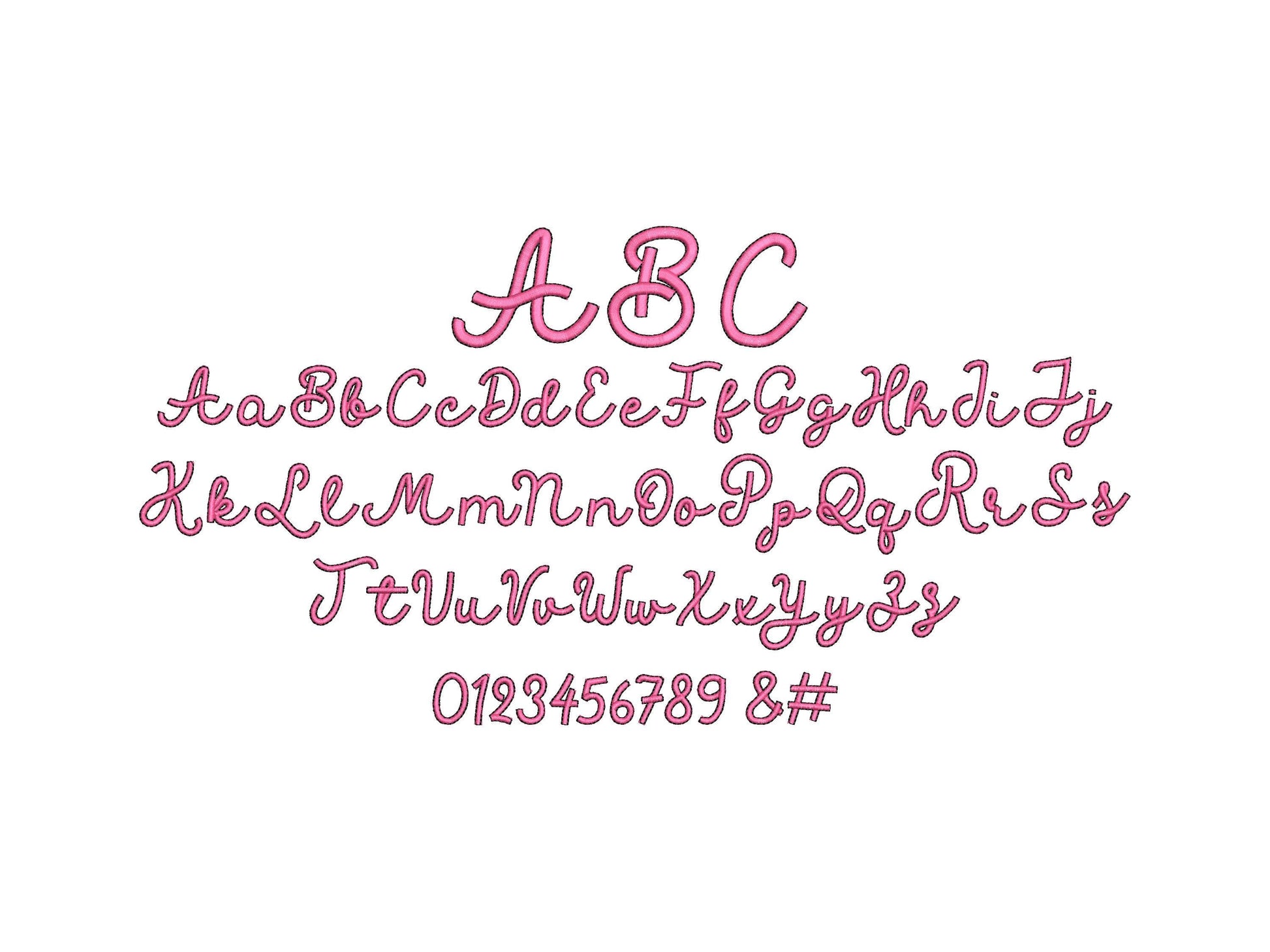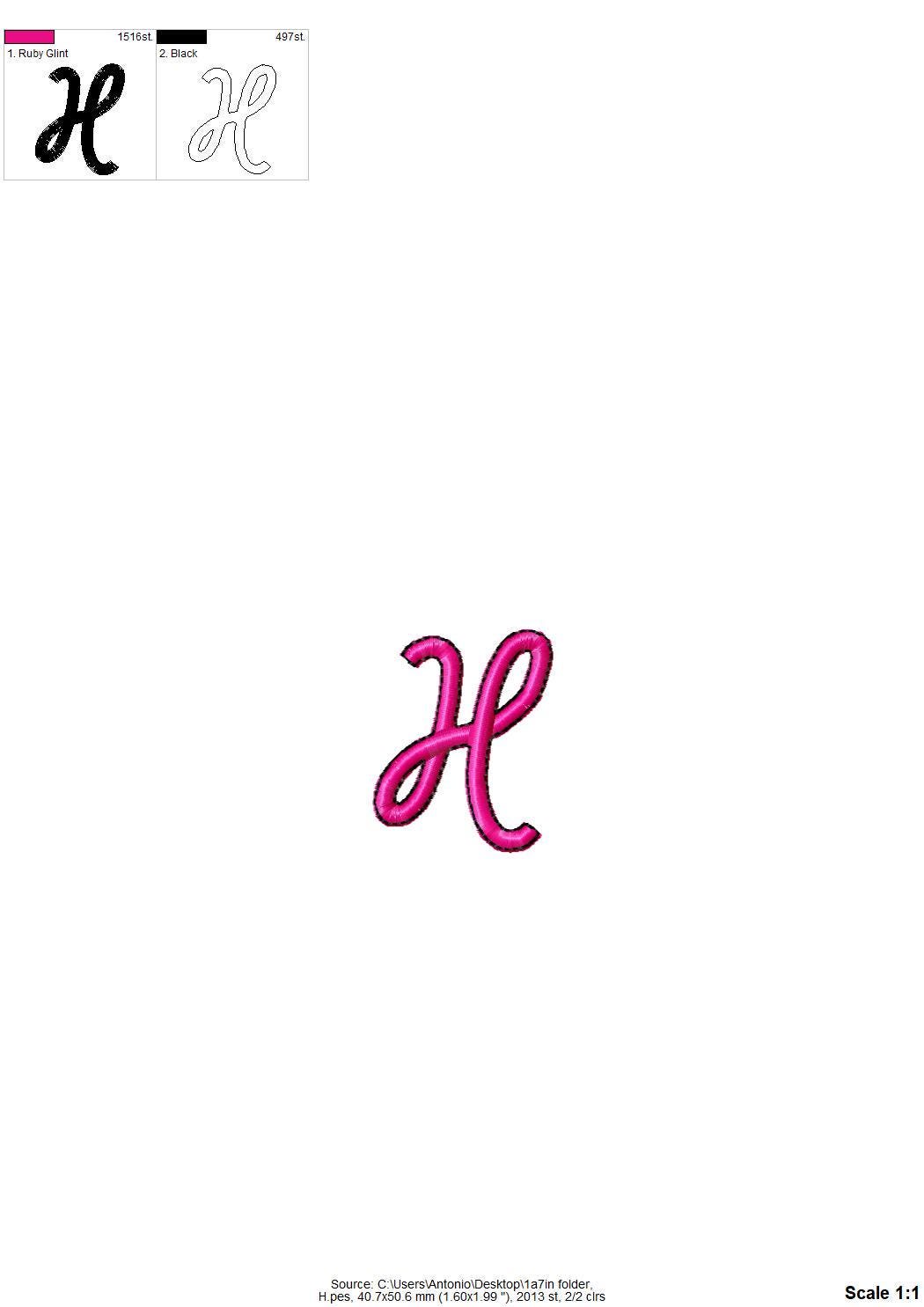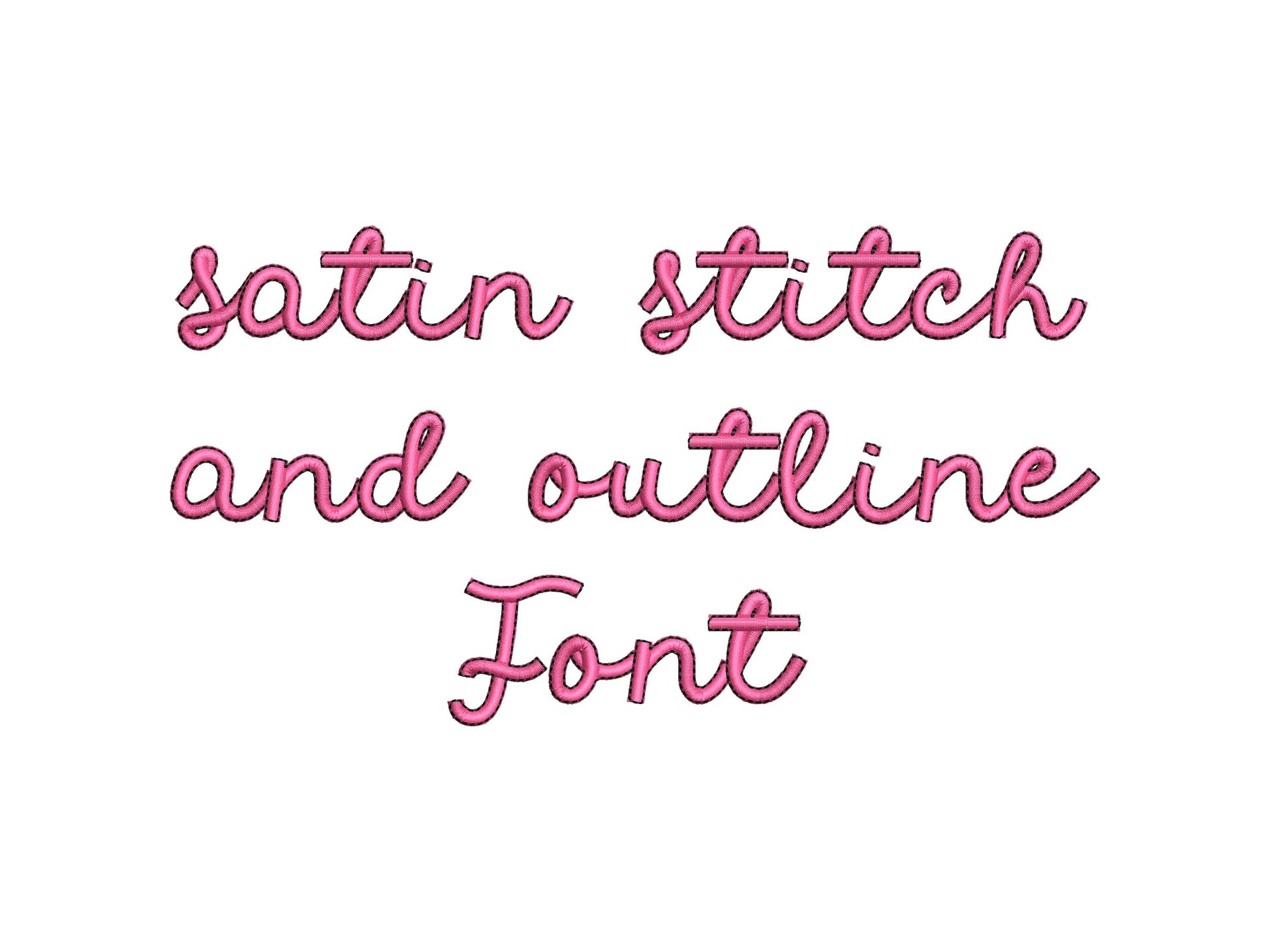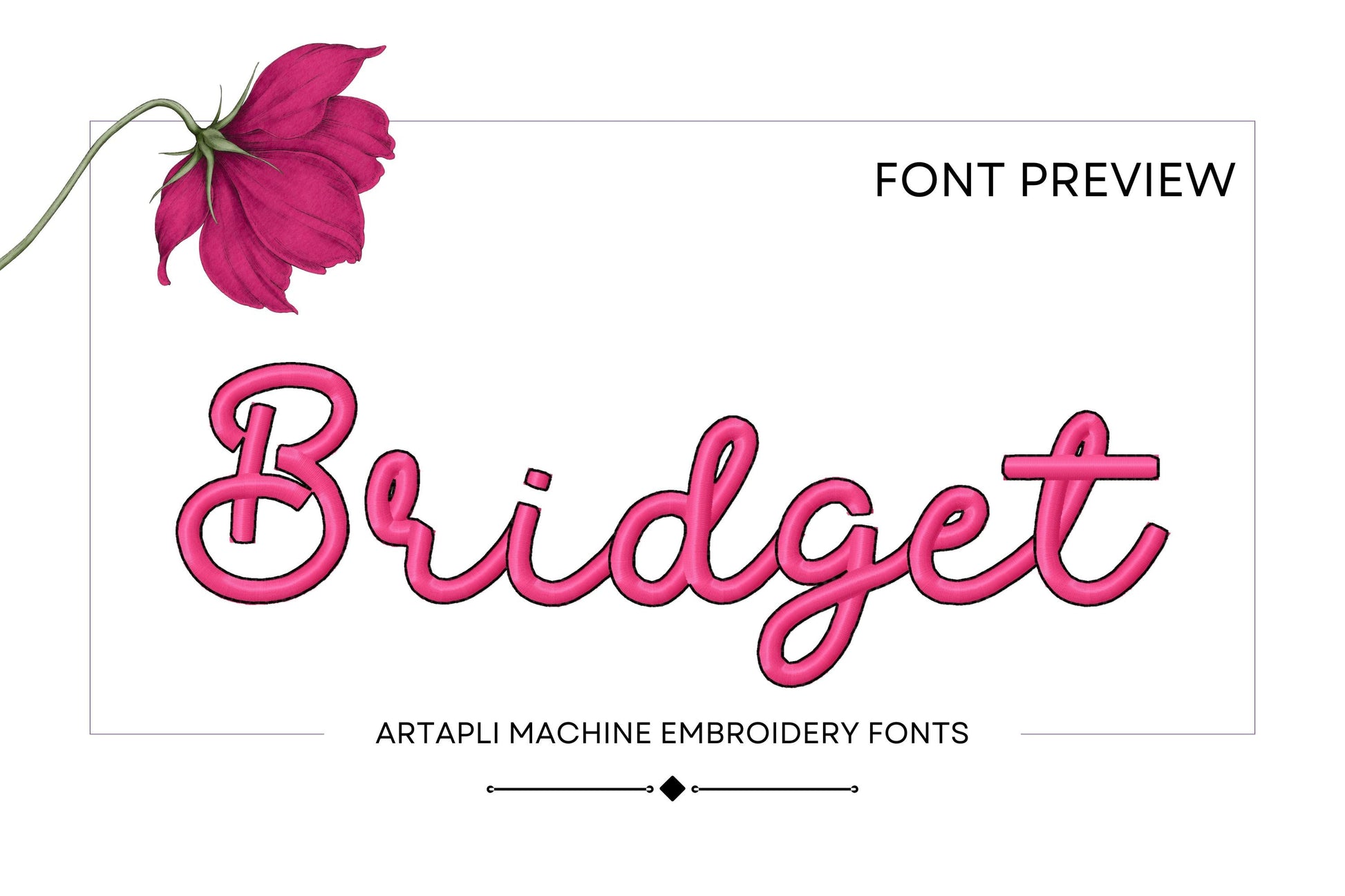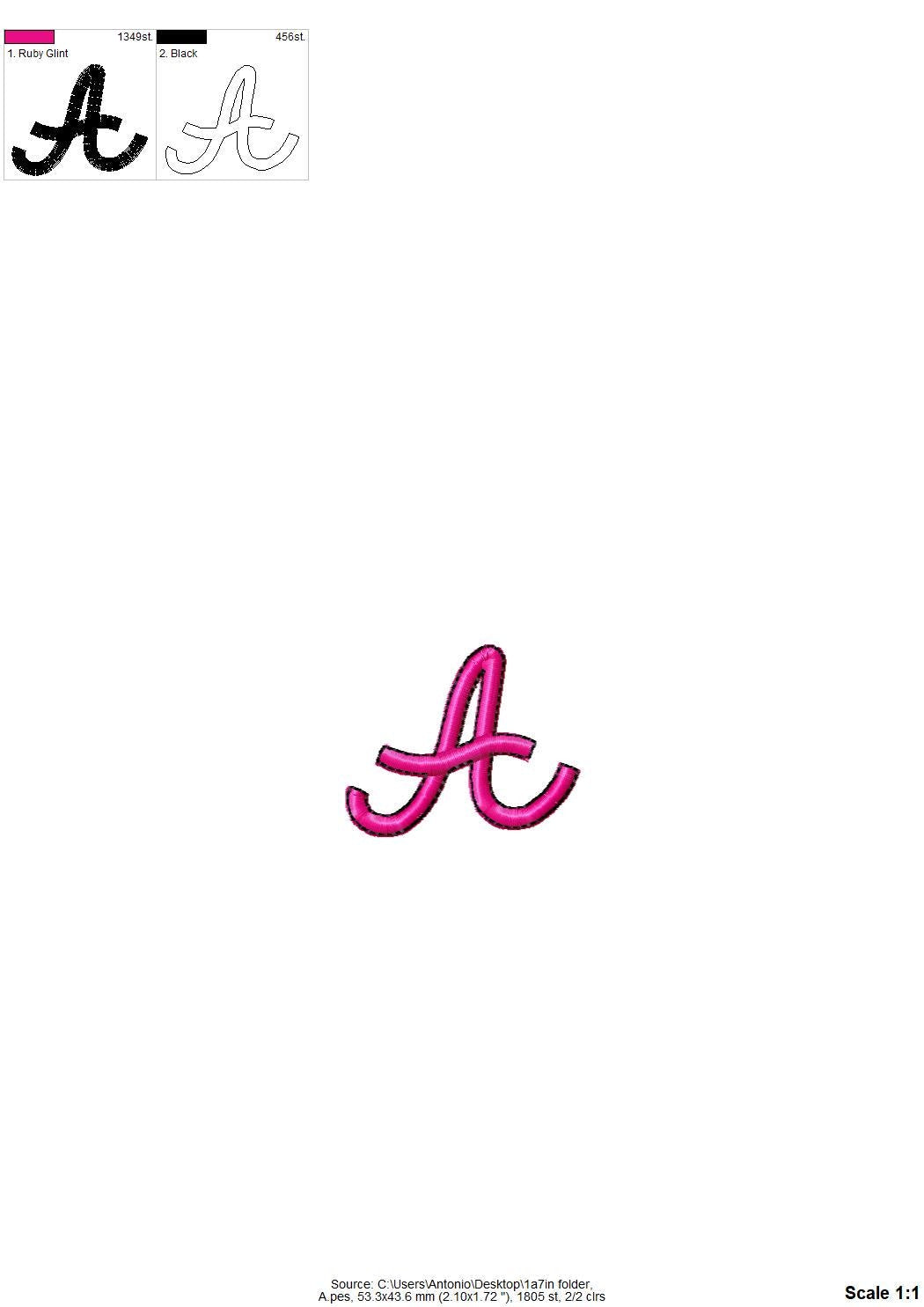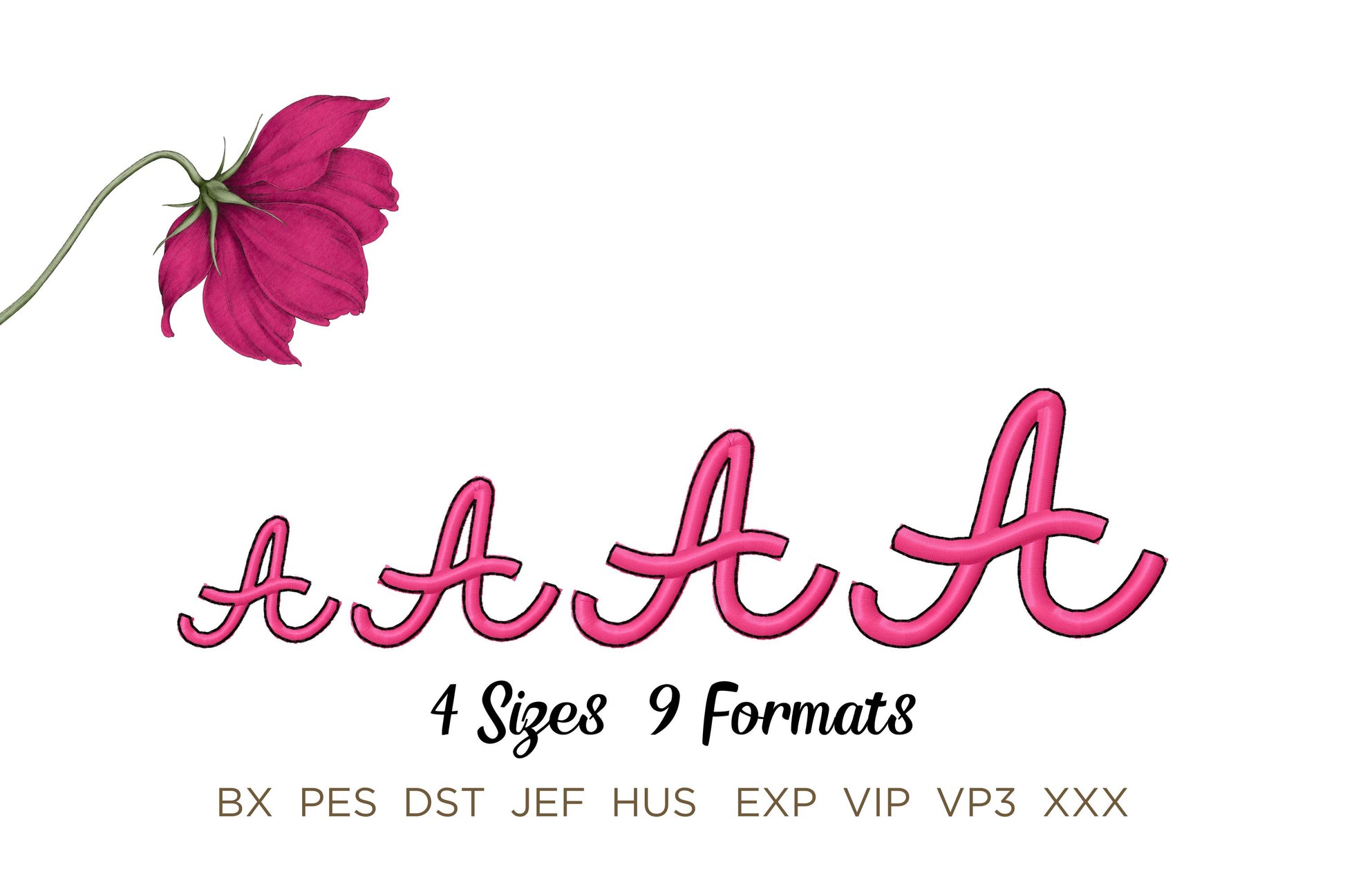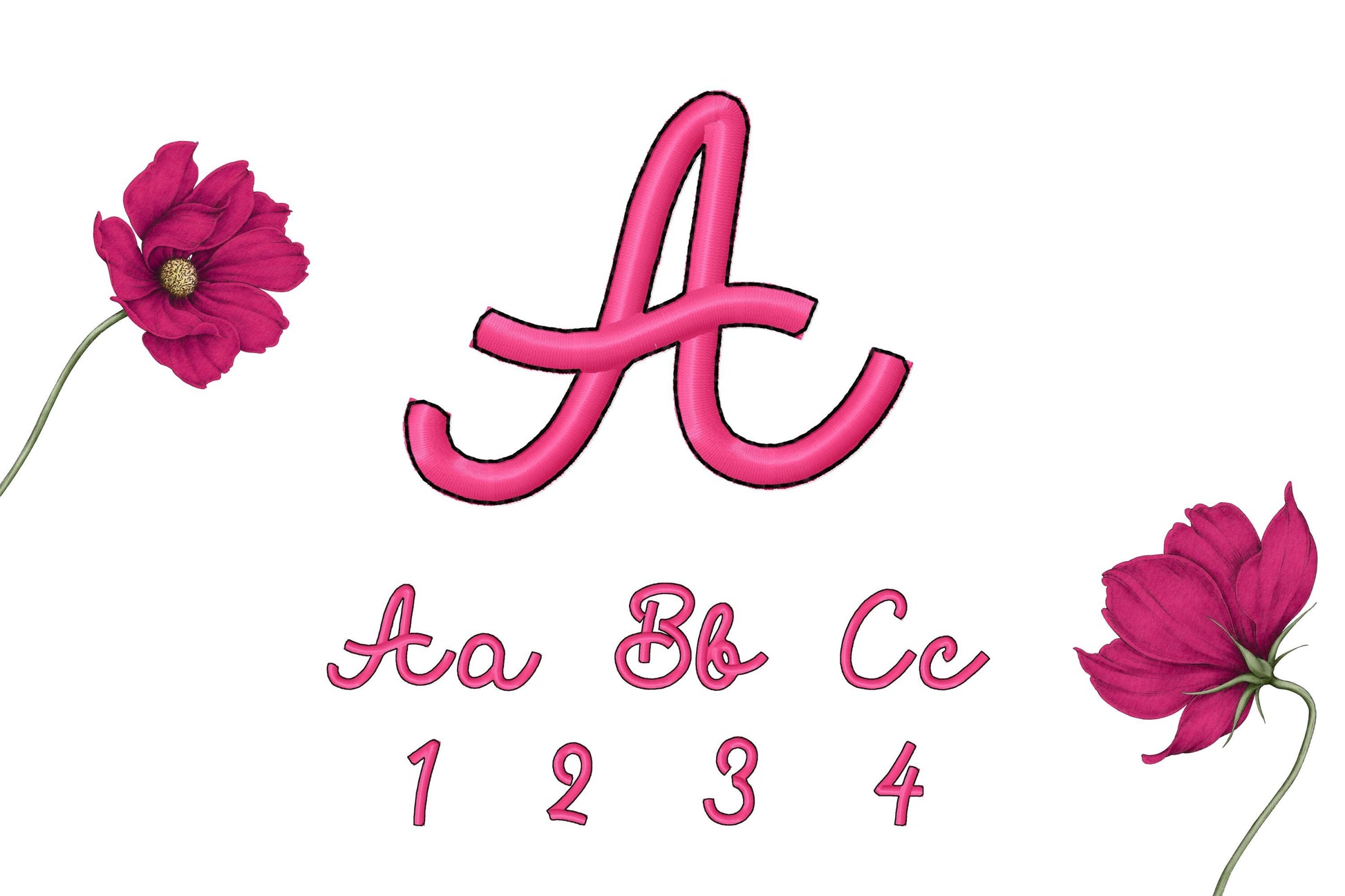
Satin Stitch and Outline Handwritten Font Barb
Or click to open the linkA small handwritten script in satin stitch with an outline. Lovely for names and monograms on shirts, bibs and gifts.
Uppercase and lowercase letters, numbers 0 to 9, an @ sign and a number sign. Four sizes: 1, 1.3, 1.7 and 2 inches.
- Satin and outline script font
- Uppercase, lowercase, numbers 0 to 9, signs
- 4 sizes, 1 to 2 in